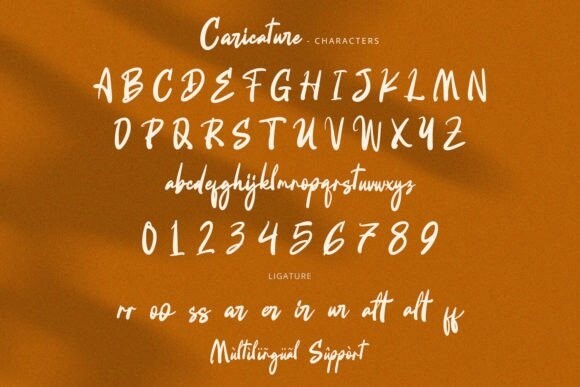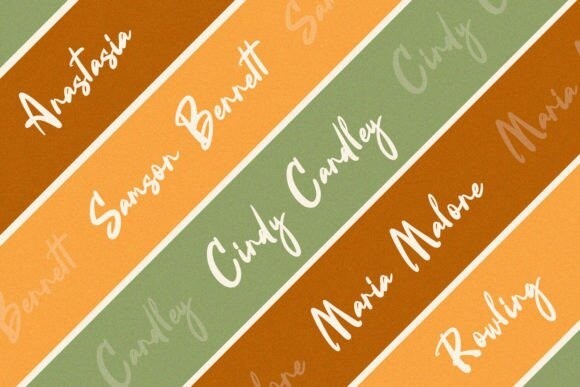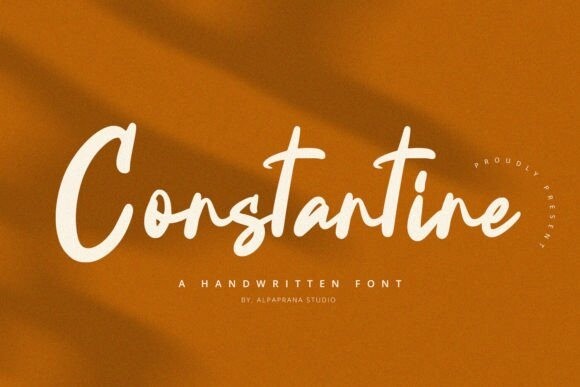
Constantine Font
Designer: alpapranastudio
Constantine Font is a stylish and incredibly elegant script font. It looks stunning on wedding invitations, thank you cards, quotes, greeting cards, logos, business cards and every other design which needs a handwritten touch.